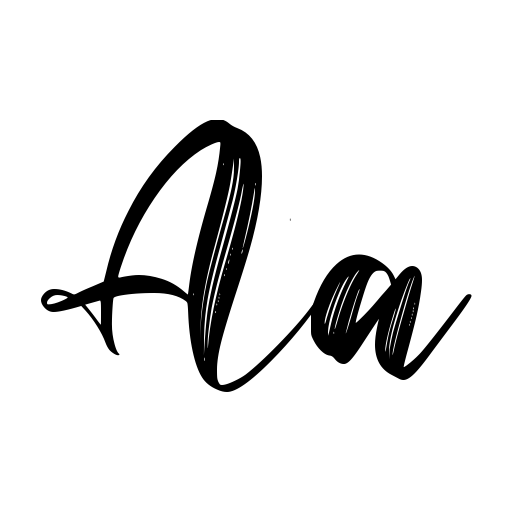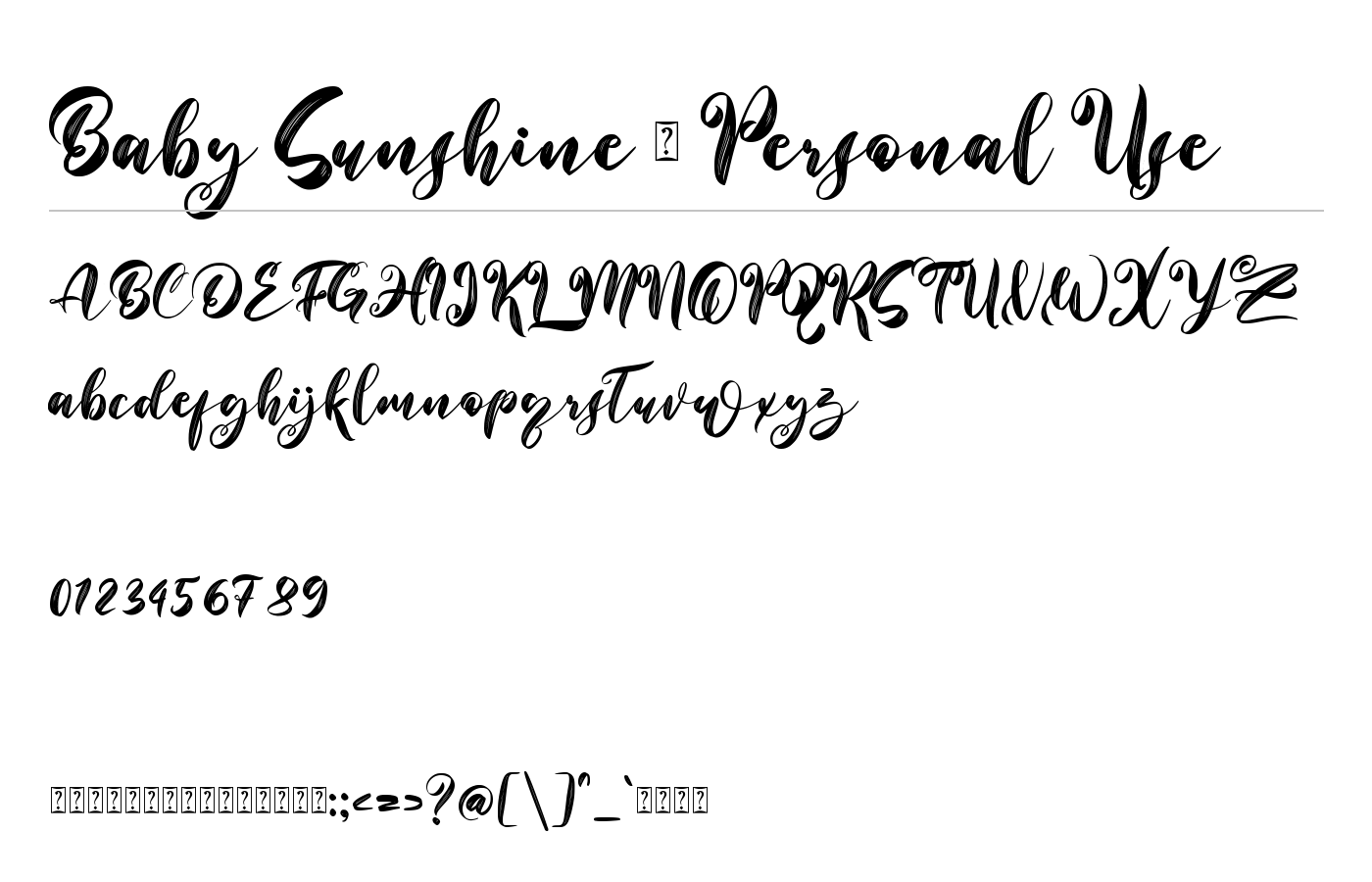
Baby Sunshine is a lively and elegant script font featuring smooth, flowing strokes with moderate contrast and playful swashes that add personality and charm. Its hand-lettered style with both uppercase and lowercase letters conveys warmth and friendliness, making it ideal for creative projects, invitations, branding, and any design that seeks a personal, cheerful touch. This font works well in headlines and logos where a welcoming, stylish vibe is desired.
Baby Sunshine Font
About Baby Sunshine Font
| Font family | Baby Sunshine Font |
| Designer | Aldedesign x Nox Studio 2021 |